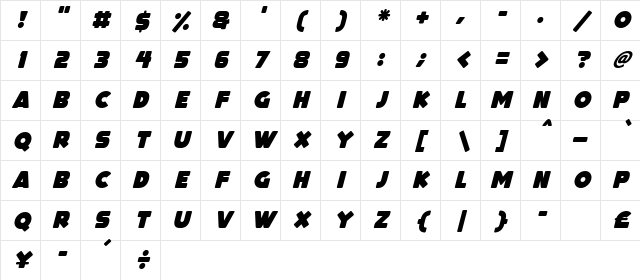
ToyBox Italic
Design Context for ToyBox
ToyBox is a composed and adaptable typeface that performs quietly and consistently across a wide range of design contexts. The slanted form adds forward momentum and visual energy.
Pro Tip: Use ToyBox for emphasis, pull quotes, and subheadings where its slanted energy can add rhythm to the layout.